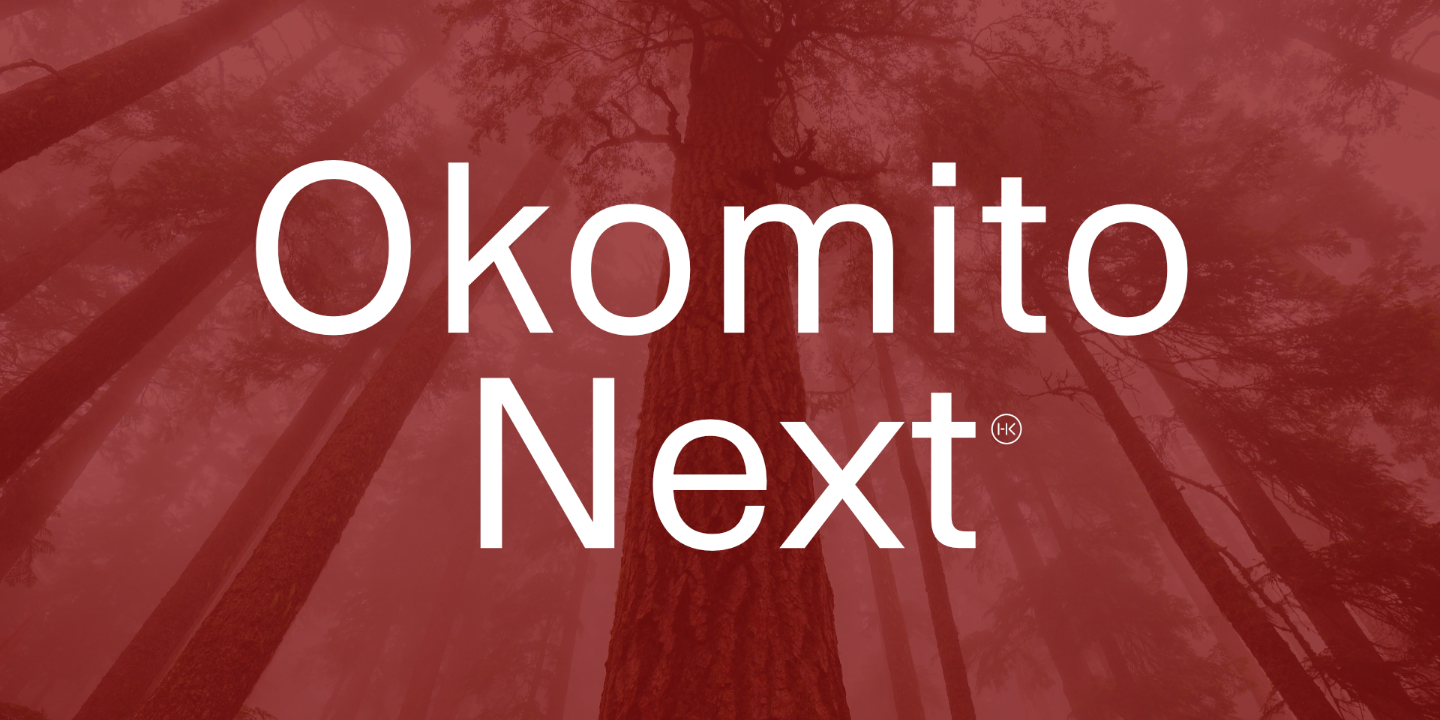
The Okomito Next Font is perfect for tech startup branding, modern app interfaces, contemporary web design, digital product logos, innovative software companies, cutting-edge technology presentations, futuristic design projects, progressive brand identities, and next-generation user experience materials.
What makes the Okomito Next Font so exciting is its forward-thinking design philosophy that perfectly captures the essence of technological innovation and digital evolution. This sophisticated typeface embodies the progressive mindset and clean efficiency that defines the next generation of digital experiences, creating an immediate impression of innovation and future-ready thinking. The font's modern character communicates the precision and forward momentum that technology companies need to establish credibility with tech-savvy audiences who demand cutting-edge solutions and progressive digital experiences.
The Okomito Next Font family includes Regular weight featuring complete uppercase and lowercase character sets, comprehensive numerical collections, essential punctuation marks, and contemporary symbols that maintain the modern aesthetic throughout your technology and innovation-focused design projects.
Technology companies and digital innovation firms consistently choose Okomito Next Font Free Download for projects that require authentic modern appeal and progressive communication. This exceptional typeface excels in environments where establishing technological sophistication and innovation leadership is crucial for attracting forward-thinking customers and early adopters. The font's contemporary character helps communicate the cutting-edge capabilities and future-focused vision that tech audiences expect from industry-leading technology providers and digital innovation companies.
The distinctive qualities of Okomito Next Font reflect the evolving landscape of digital design where clean functionality and progressive aesthetics create seamless user experiences and memorable brand interactions. Each character demonstrates the thoughtful balance between technical precision and human accessibility that characterizes successful modern technology products. The font's proportions and spacing create perfect harmony between innovative appeal and practical usability that contemporary tech businesses require for effective market positioning and user engagement.
Contemporary digital enterprises appreciate how Okomito Next Font communicates innovation leadership and technological excellence. Whether designing interfaces for mobile applications, creating branding for software platforms, or developing marketing for digital services, this font delivers the authentic character that distinguishes forward-thinking technology companies from outdated traditional firms. The typeface works exceptionally well for businesses emphasizing user experience, digital transformation, and the future of technology interaction.
The versatility of Okomito Next Font extends across multiple technology applications and digital innovation initiatives. Startup accelerators utilize its progressive character for program materials and entrepreneur resources. Digital agencies choose it to communicate their expertise in modern design and innovative client solutions. Tech conferences rely on its contemporary appearance to create engaging presentations and promotional materials that attract industry professionals and technology leaders.
Digital technology platforms benefit from Okomito Next Font's optimized performance across various modern applications and progressive communication channels. The font maintains its innovative character whether displayed on responsive websites, mobile interfaces, or high-resolution digital displays. This technical excellence ensures consistent brand presentation across all digital touchpoints and technology interaction scenarios.
The psychological impact of Okomito Next Font resonates with audiences who embrace technological progress and value innovation in their digital experiences. The typeface serves as a visual promise of advanced capabilities and future-ready solutions that helps technology companies build lasting relationships with progressive customers and innovation-minded businesses. This connection to technological advancement and digital evolution makes it invaluable for establishing credible next-generation brand identities.
Technology marketing specialists and digital design professionals recognize Okomito Next Font as an essential tool for progressive tech branding. The font captures the essence of digital innovation while making cutting-edge technology accessible to contemporary businesses who want to communicate their commitment to technological excellence, user-centered design, and the future of digital interaction in today's rapidly evolving technology marketplace.